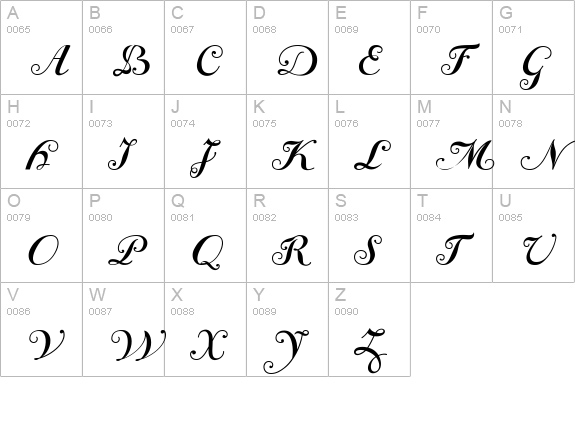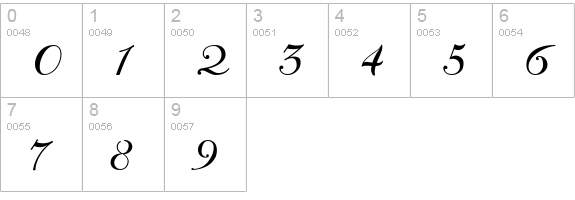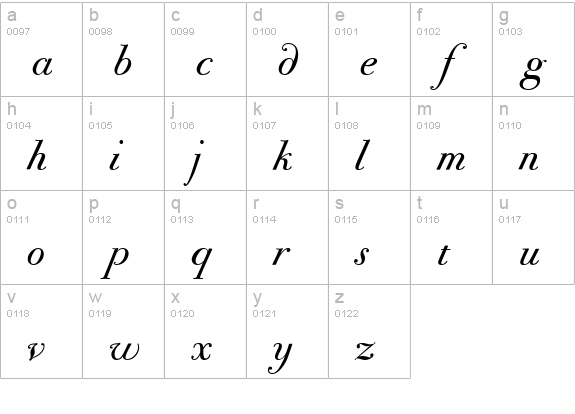
BodoniClassicChancery Font Details
BodoniClassicChancery is a stunning and elegant typeface that exudes sophistication and timeless beauty. With its delicate curves and graceful serifs, this font is perfect for adding a touch of class to any design project. Whether you're working on invitations, wedding stationery, or branding materials, BodoniClassicChancery will elevate your work to the next level. The best part? BodoniClassicChancery is available for free download at FontsMarket.com. This means you can access this exquisite font without any cost, making it a valuable addition to your design toolkit. Don't miss out on the opportunity to enhance your creations with the luxurious charm of BodoniClassicChancery. Download it today and let your creativity shine!